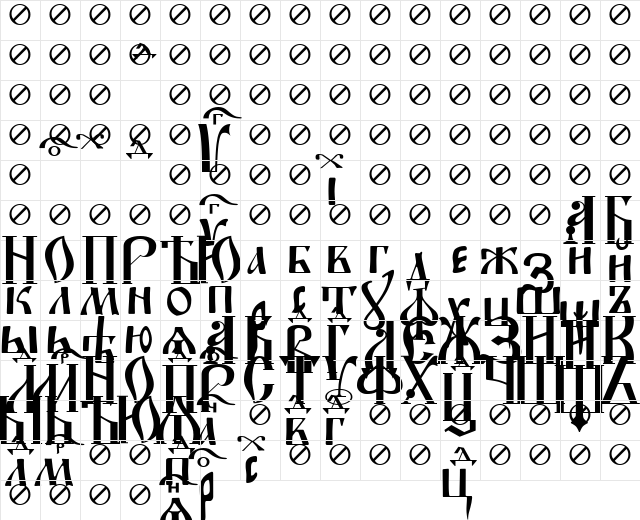
Irmologion EtceteraTitles Normal Font Preview
Irmologion EtceteraTitles Normal
Irmologion EtceteraTitles Normal Font Details
Design Context for Irmologion EtceteraTitles Typeface
Irmologion EtceteraTitles takes a measured approach to typography — its balanced proportions and neutral character make it a reliable workhorse for both digital and print work.